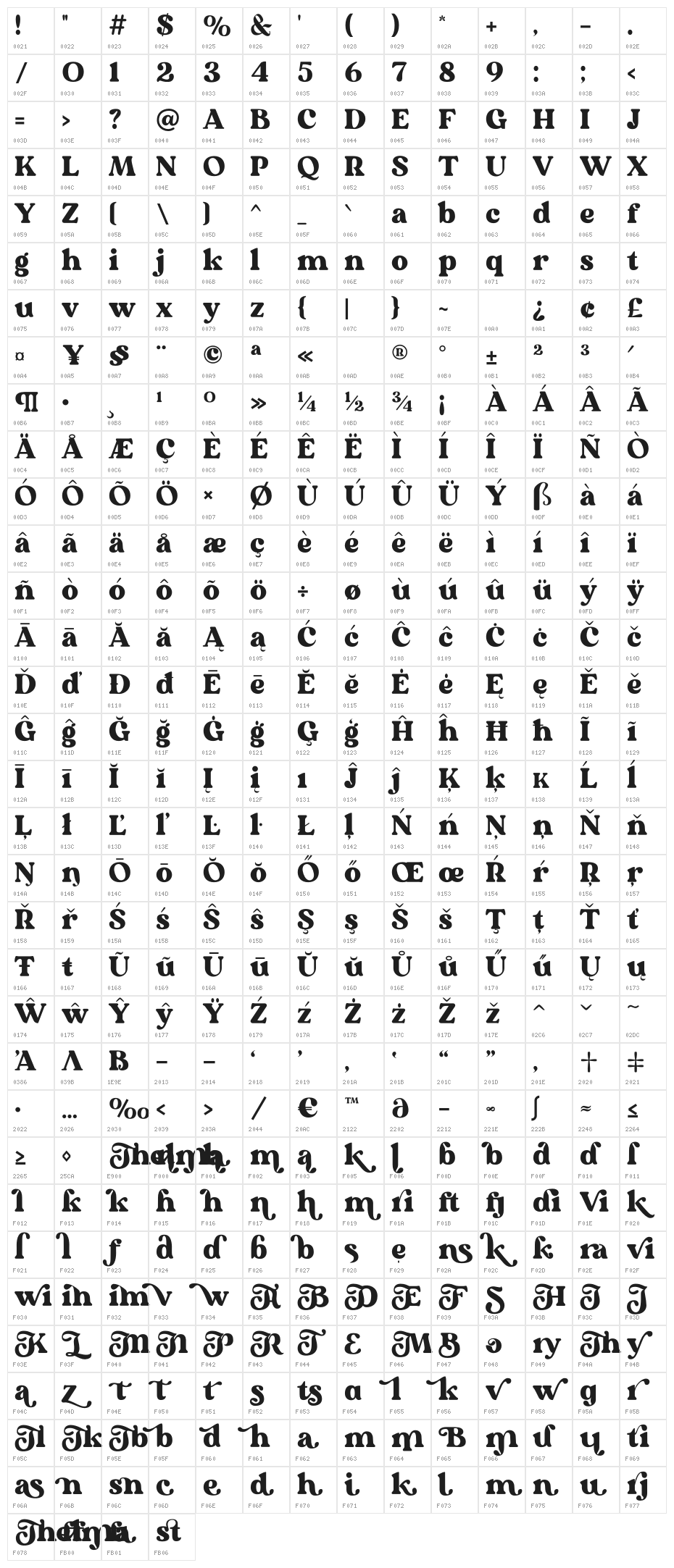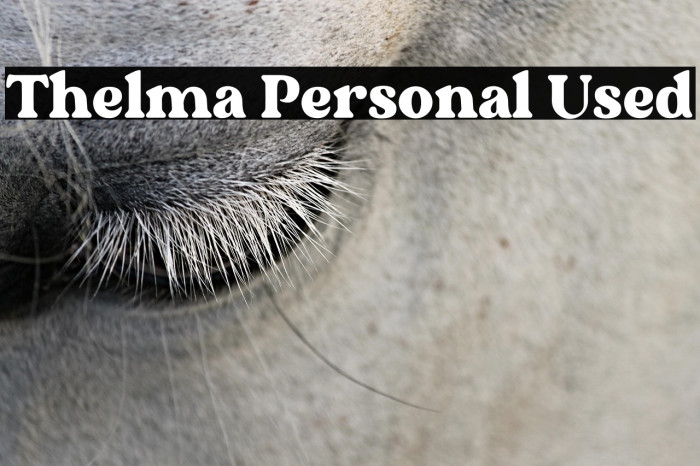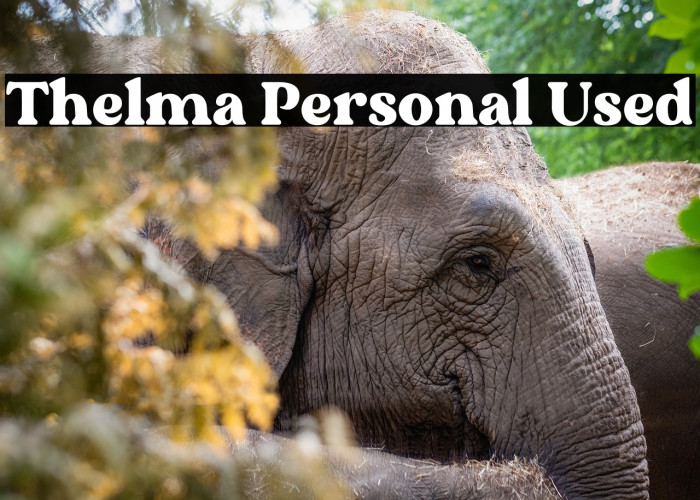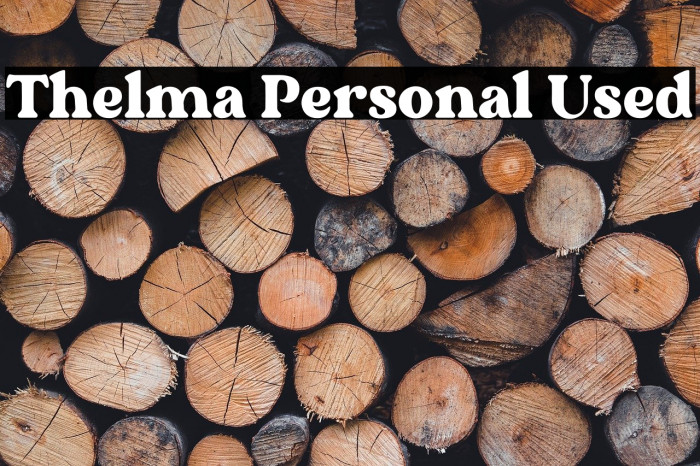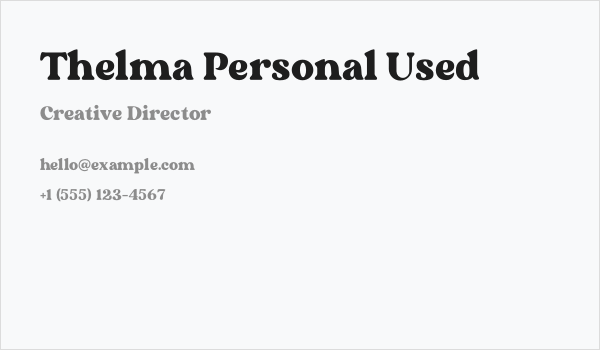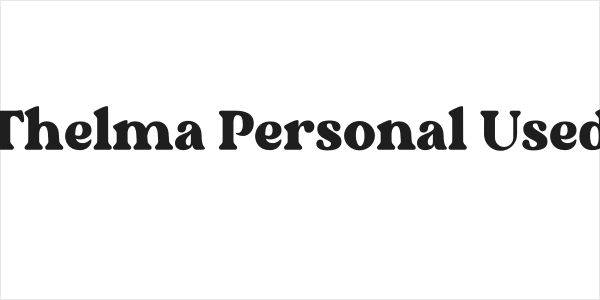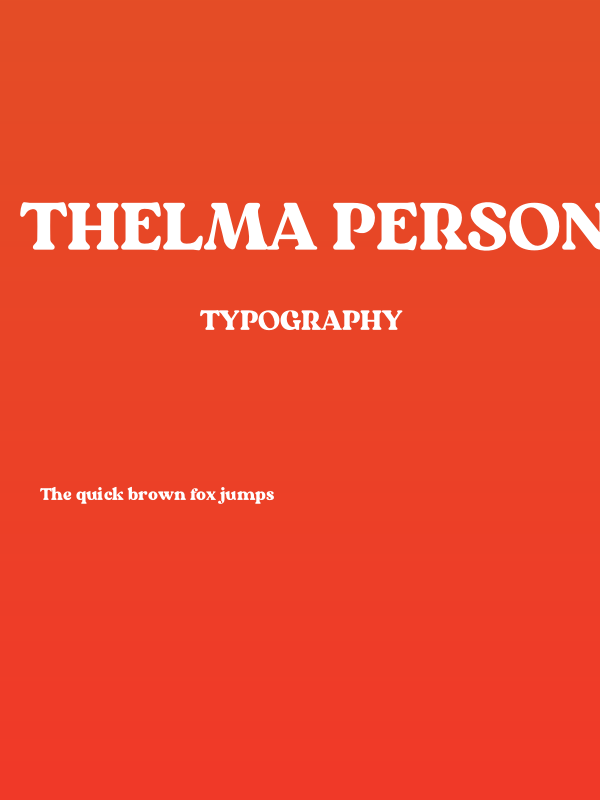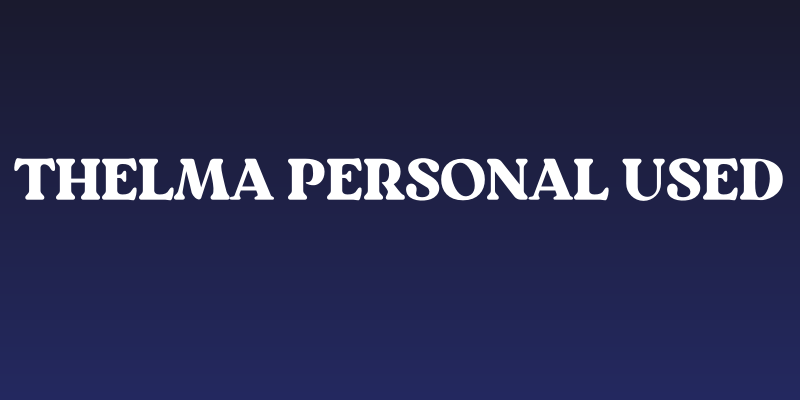
Thelma Personal Used Font
Thelma Personal Used Description
A bold, decorative serif font with high contrast and distinctive curves, suitable for impactful designs.
| Proposed Projects | Posters, headlines, branding, logos. |